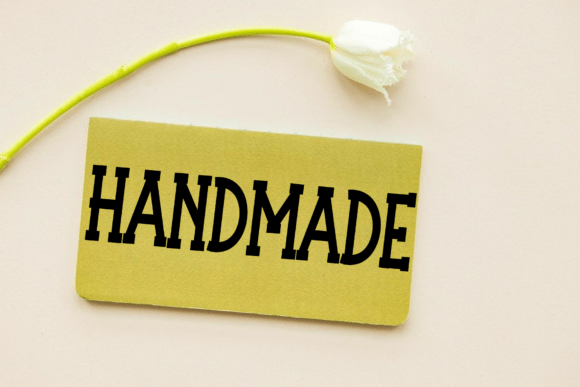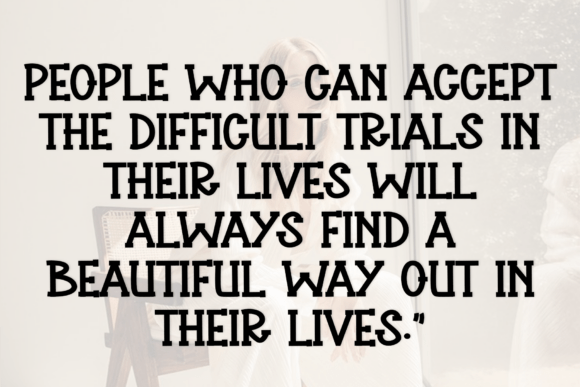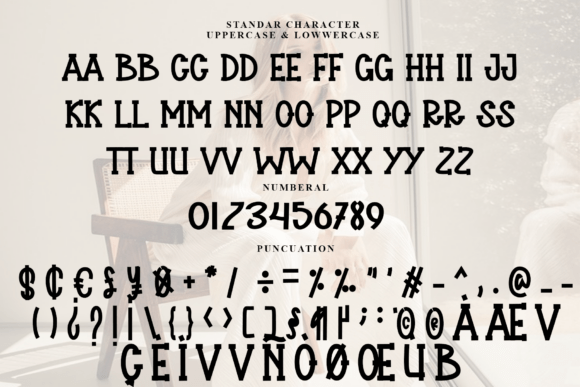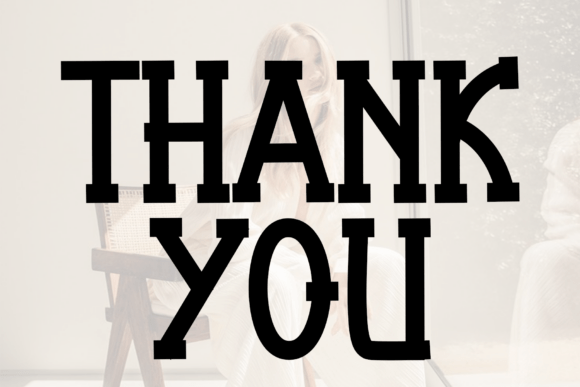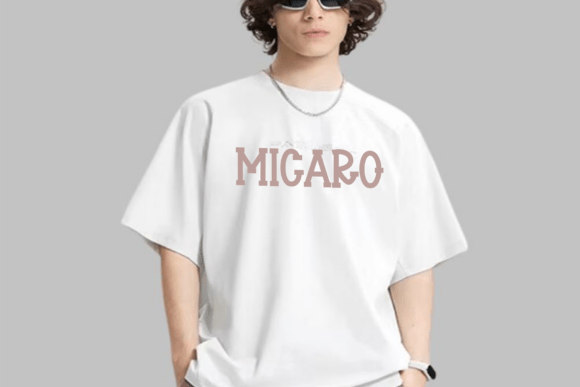
Introducing Cool Women Font: Elevate Your Designs with a Unique and Professional Aesthetic
In the world of typography, a font can make or break a design. For designers and crafters looking to add a touch of sophistication and elegance to their work, Cool Women Font is an excellent choice. This tall, authoritative display font combines classic collegiate proportions with modern decorative flair, making it perfect for high-end fashion editorial headers, sophisticated lifestyle branding, boutique apparel logos, and creative posters.
What Sets Cool Women Font Apart
Cool Women Font is part of a modern handwritten collection that boasts narrow, elongated letterforms with heavy, blocky serifs and sharp geometric terminals. What makes this font truly unique is the inclusion of small, circular “stud” or diamond-shaped accents positioned in the center of the vertical stems. This distinctive feature gives the font a fashionable, boutique-inspired personality that is sure to make your designs stand out.
Key Features of Cool Women Font
- Classic Collegiate Proportions: Cool Women Font combines traditional proportions with modern flair, making it perfect for designs that require a touch of sophistication.
- Narrow, Elongated Letterforms: The font’s narrow letterforms give it a sleek, elegant appearance that is ideal for high-end fashion editorial headers and sophisticated lifestyle branding.
- Heavy, Blocky Serifs: The heavy serifs add a touch of authority and professionalism to the font, making it perfect for designs that require a strong, confident look.
- Sharp Geometric Terminals: The sharp terminals add a touch of modernity to the font, giving it a fresh and contemporary feel.
- Unique “Stud” Accents: The small, circular “stud” or diamond-shaped accents positioned in the center of the vertical stems give the font a fashionable, boutique-inspired personality.
Cool Women Font is a versatile font that can be used for a variety of design projects, including:
- High-End Fashion Editorial Headers: The font’s elegant, sophisticated appearance makes it perfect for fashion editorial headers that require a touch of luxury.
- Sophisticated Lifestyle Branding: The font’s classic collegiate proportions and modern decorative flair make it ideal for lifestyle branding that requires a touch of sophistication.
- Boutique Apparel Logos: The font’s fashionable, boutique-inspired personality makes it perfect for boutique apparel logos that require a unique and professional aesthetic.
- Creative Posters: The font’s bold, eye-catching appearance makes it ideal for creative posters that require a strong, confident look.
Why Choose Cool Women Font?
With so many fonts to choose from, why choose Cool Women Font? Here are just a few reasons:
- Unique and Professional Aesthetic: Cool Women Font offers a unique and professional aesthetic that is sure to make your designs stand out.
- Versatile: The font can be used for a variety of design projects, from high-end fashion editorial headers to sophisticated lifestyle branding.
- Elegant and Sophisticated: The font’s elegant, sophisticated appearance makes it perfect for designs that require a touch of luxury.
In conclusion, Cool Women Font is a standout choice for designers and crafters looking to add a touch of sophistication and elegance to their work. With its unique and professional aesthetic, versatile design, and elegant, sophisticated appearance, this font is perfect for a variety of design projects. Whether you’re working on high-end fashion editorial headers, sophisticated lifestyle branding, boutique apparel logos, or creative posters, Cool Women Font is an excellent choice.